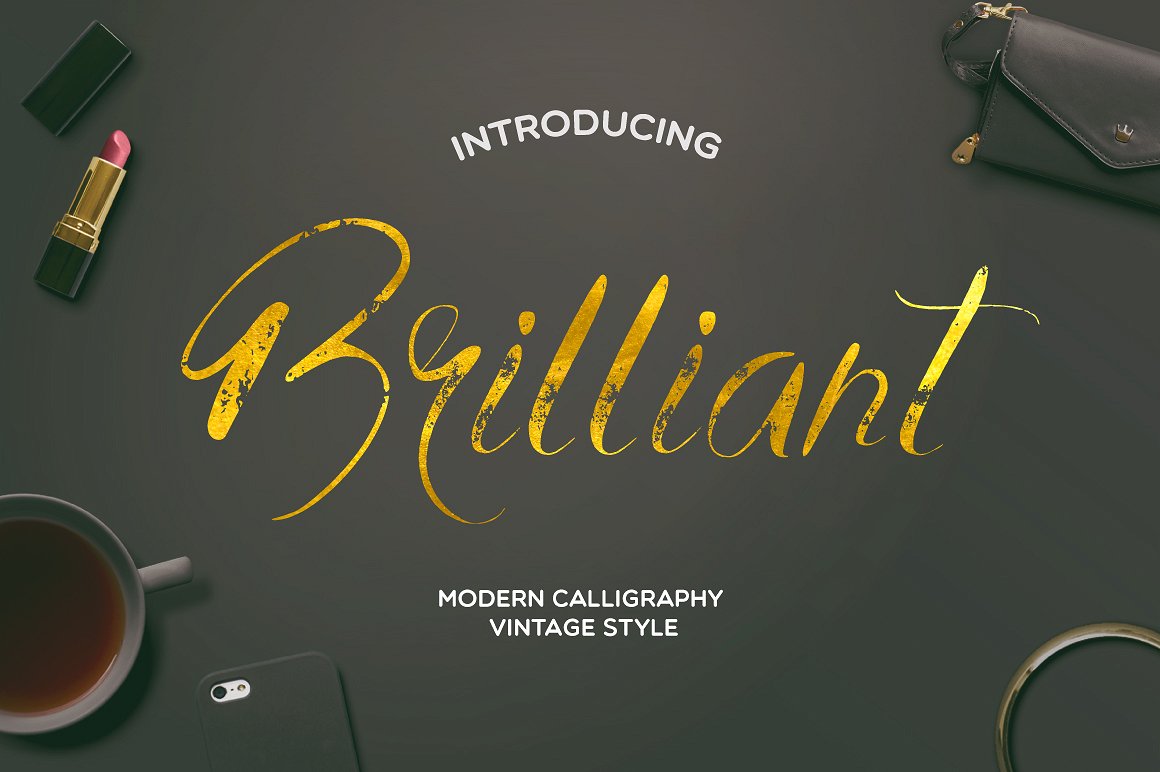
Brilliant Calligraphy Font
This fonts are perfect for wedding invitation or postcard for your friend. Also with their help, you can create a logo or beautiful poster. Or just use for your small business.